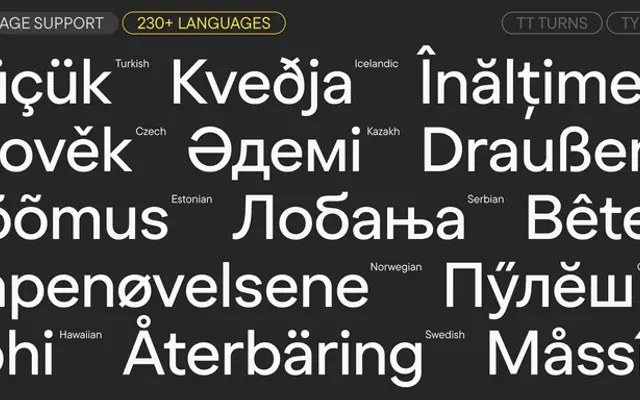
TT Turns
TypeType · Pavel Emelyanov, Yulia Gonina, Anna Tikhonova, Yuriy Nakonechny · 2025
A geometric sans with subtle humanist touches across 19 styles, designed to work from running text to display sizes without switching families.
Structured around balanced geometric proportions, TT Turns introduces expressive details — sharp terminals on 'S', 'C' and 'a', a pronounced leg on 'R', and broad-nib pen forms in the Cyrillic 'Дд' and 'Лл' — that give the family a slight display quality at larger sizes. Six stylistic sets allow alternates for 'a', 'g', 'G', 'K', 'Q' and 'y', shifting the typographic tone from neutral to characterful. Coverage extends to over 230 languages across Latin and Cyrillic, with a variable font spanning weight and slant axes.
Built on strictly balanced geometric proportions with humanist inflections, particularly in the Cyrillic letterforms and terminal details. TypeType describe it as a synthesis of geometric and humanist styles.